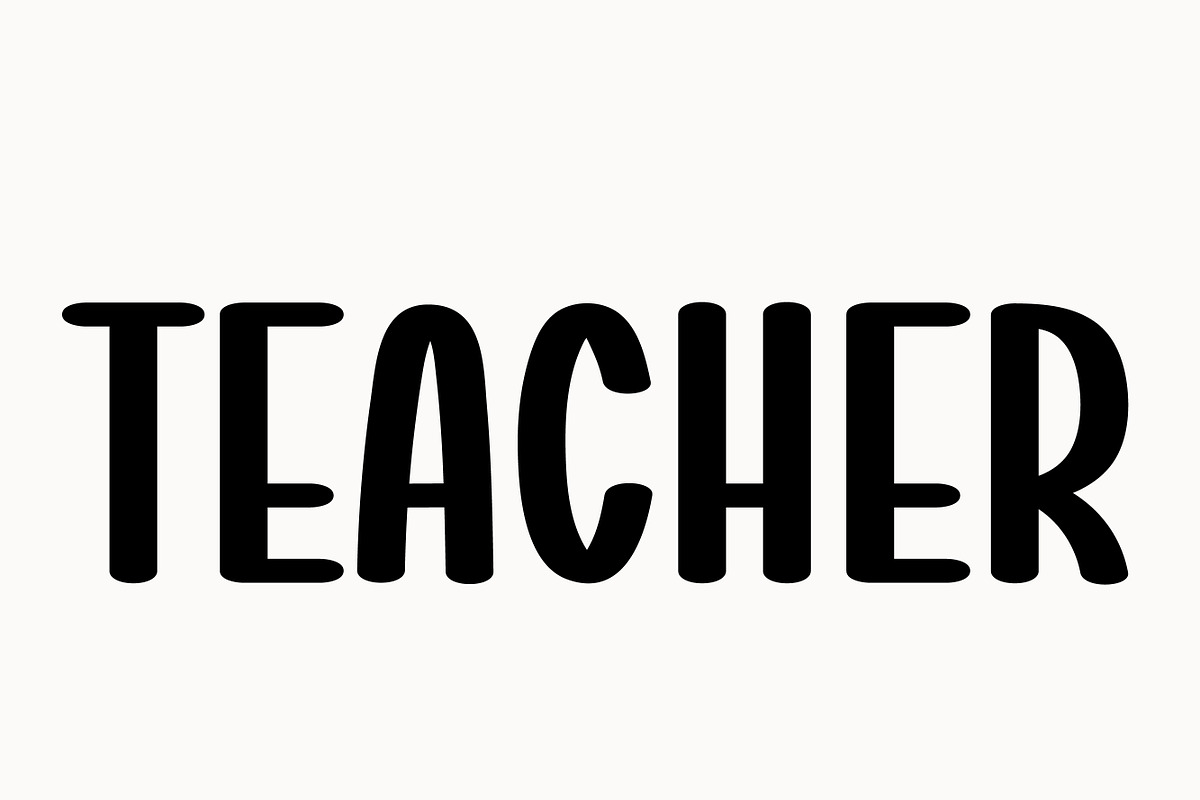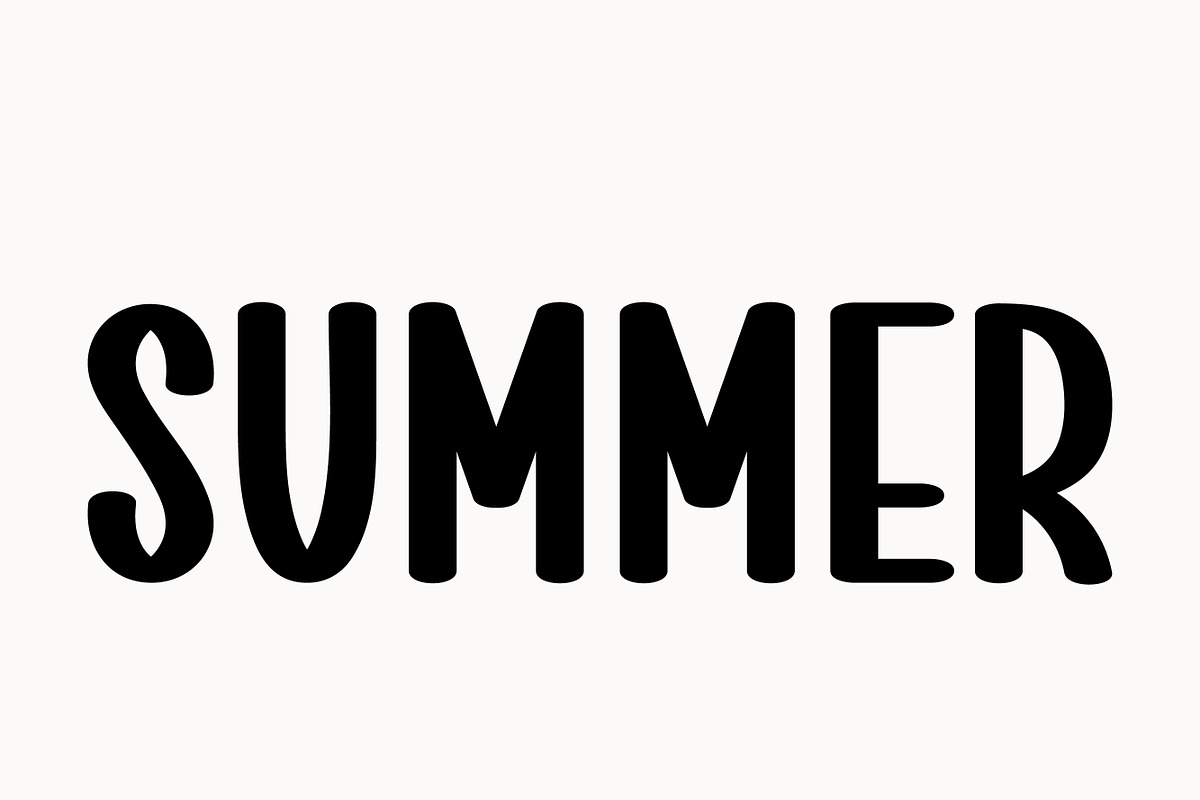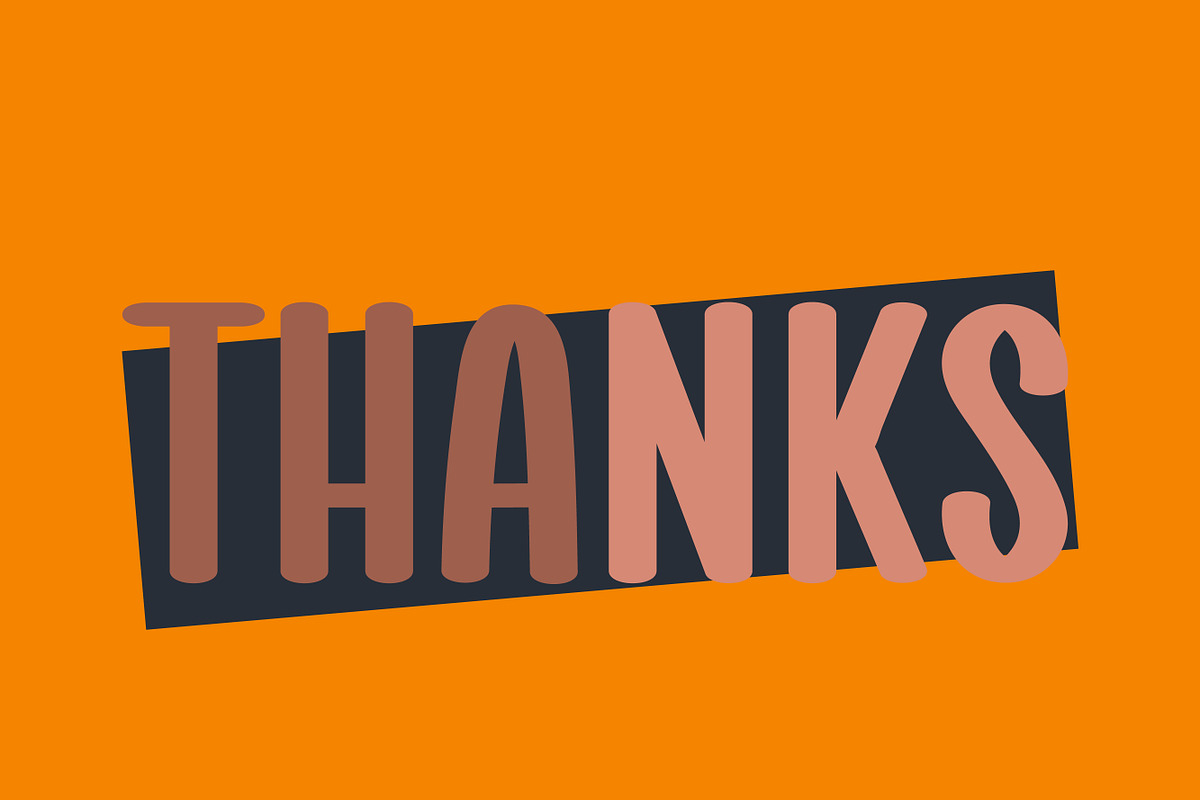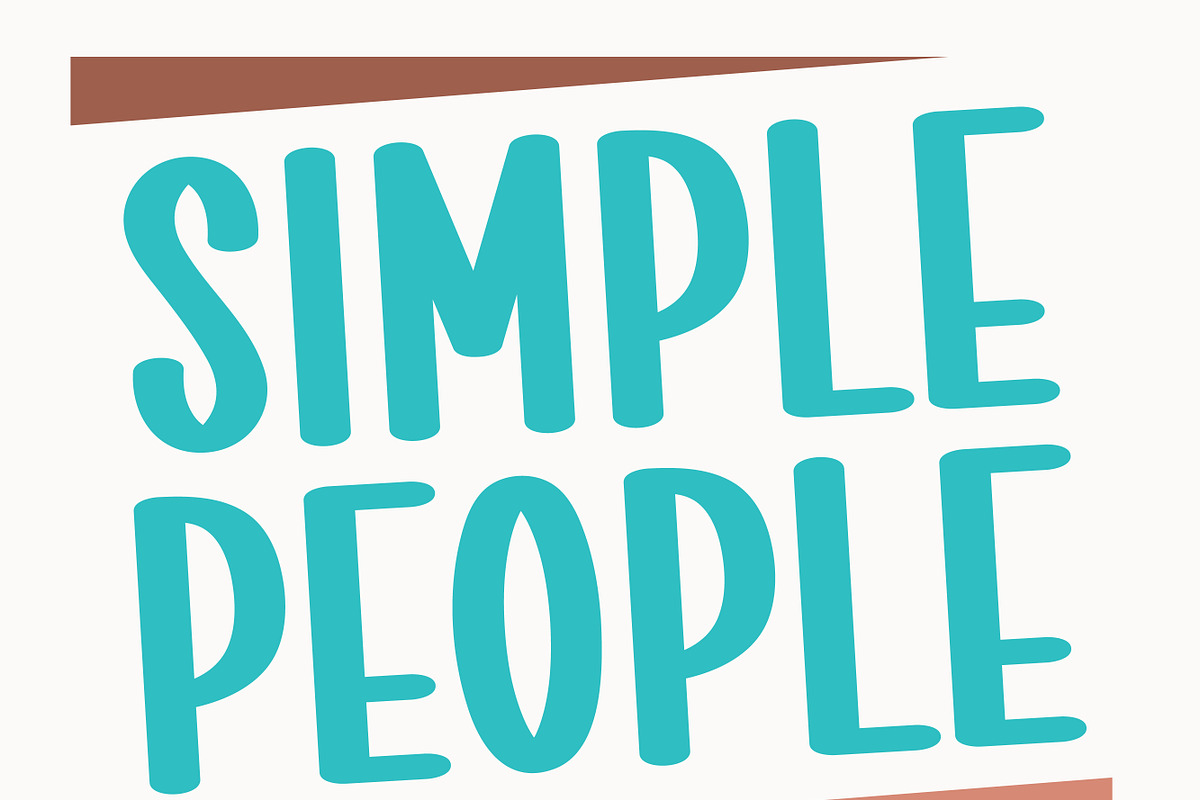
Simple People
Simple People is a clean, easy-to-read sans serif font. It has straight lines and a modern look, making it perfect for both titles and body text. This font feels friendly and approachable, great for casual designs and everyday use. Its simplicity ensures clarity, making your words stand out without any distractions.